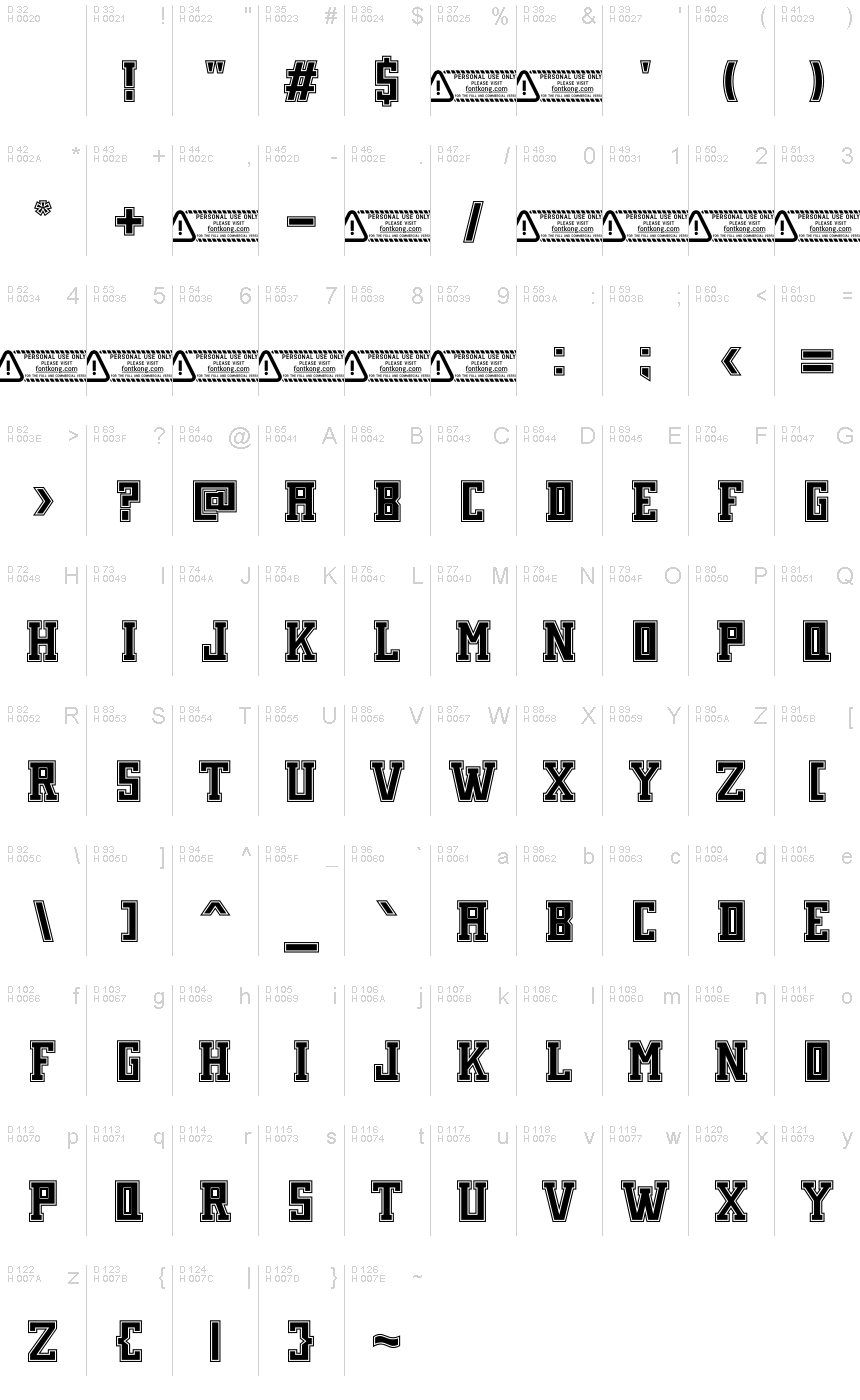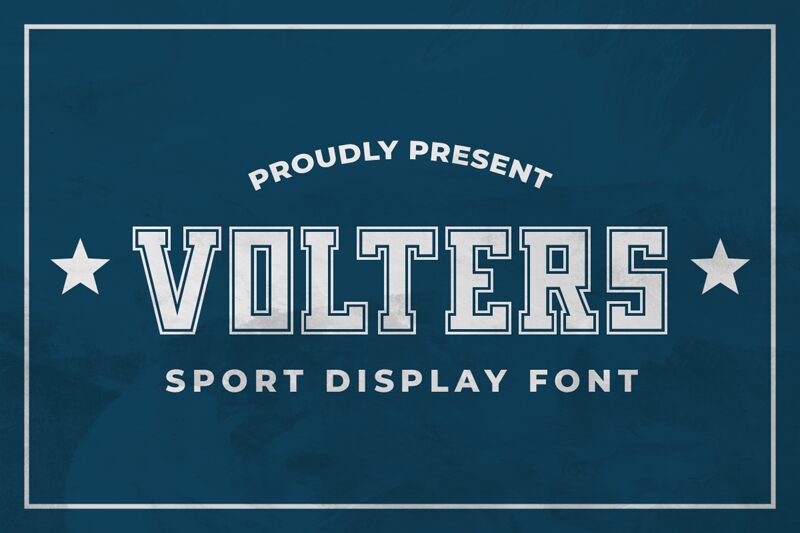
Volters
Volters, crafted by Kong Font, is a display typeface that exudes a nostalgic old school charm. Its condensed structure enhances its assertive presence, making it an unmissable beacon of boldness and simplicity. The font's heavy strokes and blocky form evoke memories of classic posters and signage from yesteryear, while still maintaining a fresh edge for contemporary design.
This font finds its strength in headline creation, branding projects, and any setting where the goal is to make an impactful statement. Volters stands out in visual landscapes that call for a touch of retro flair without sacrificing modern sensibilities. Whether it's anchoring the visuals of a vintage-inspired event or adding character to merchandise design, Volters promises to deliver both style and substance with every letter.